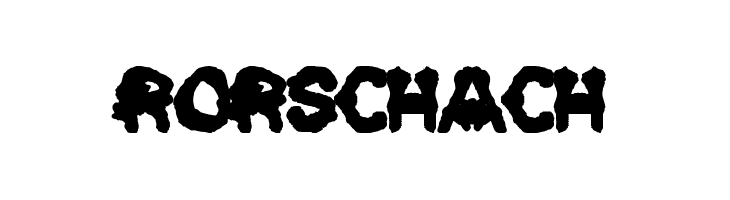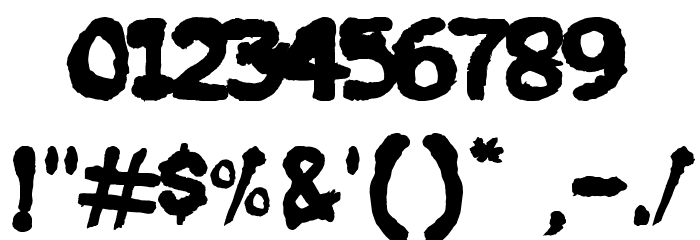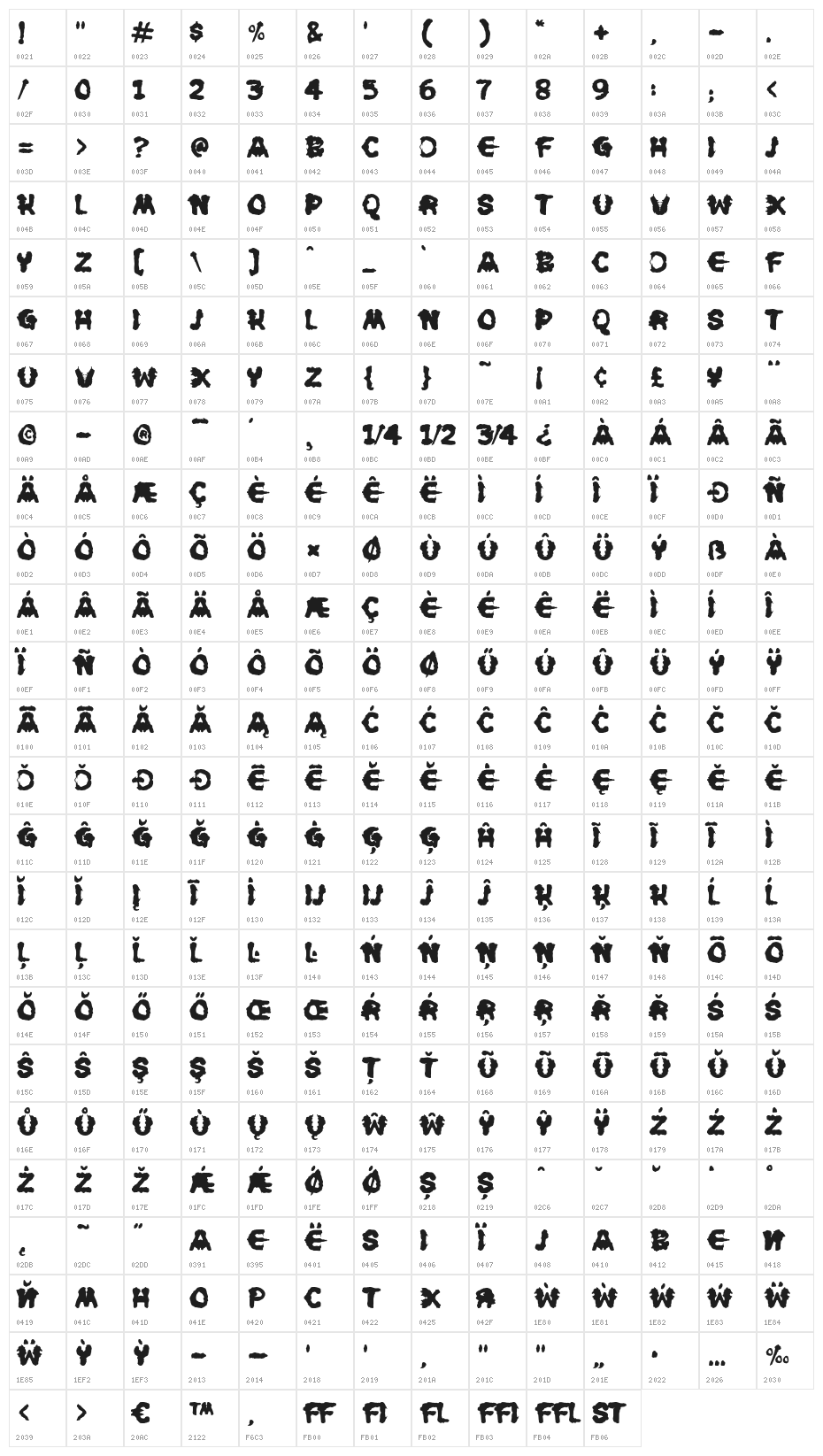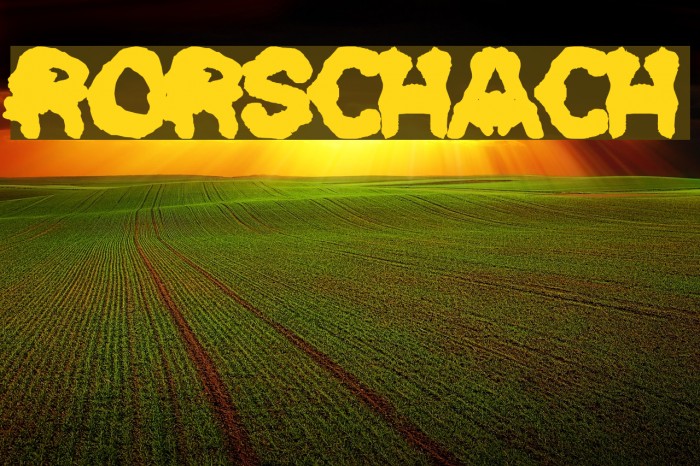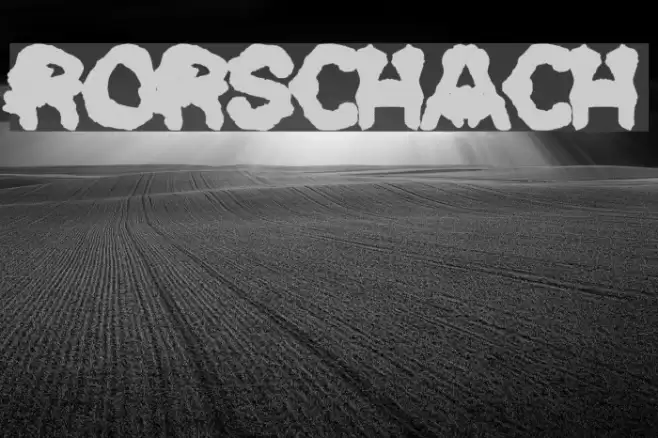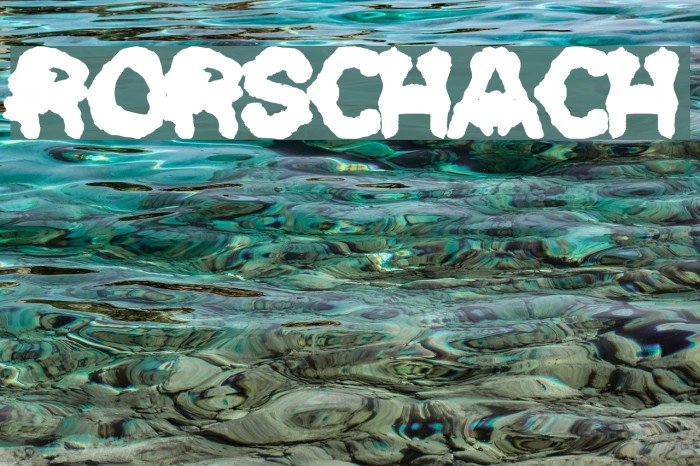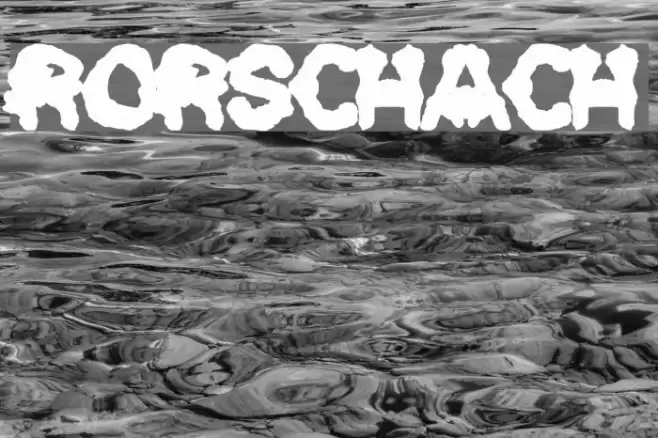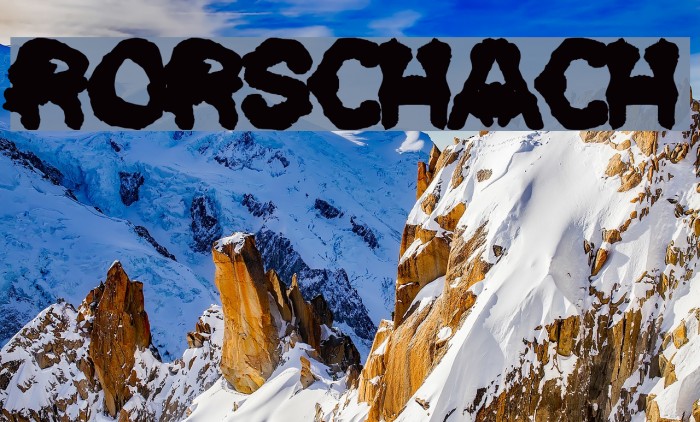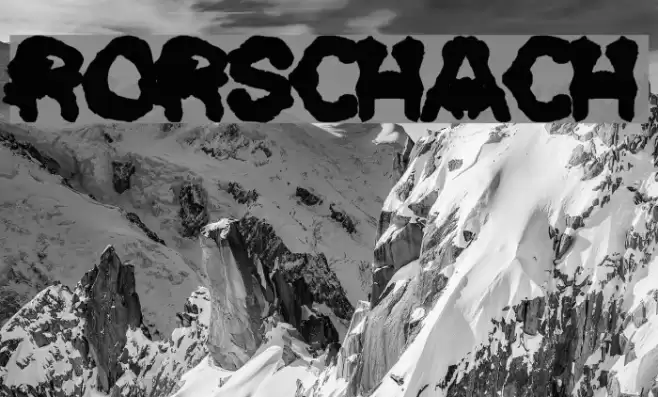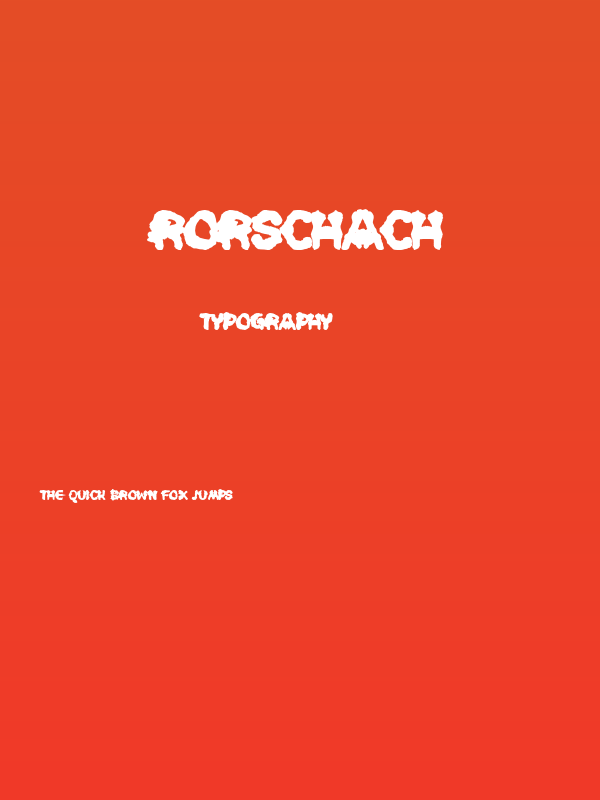
Rorschach Font
Rorschach Description
This font features a bold and dramatic style, reminiscent of inkblot patterns, which gives it a unique and artistic appearance. The characters are heavily stylized with irregular edges, creating a sense of movement and fluidity. The uppercase and lowercase letters maintain a consistent design, while the numbers and special characters complement the overall aesthetic. This font is ideal for projects that require a strong visual impact and a creative touch.
| Overall Style | Artistic, Dramatic |
| Proposed Projects | Ideal for artistic posters, album covers, creative branding, and unique invitations. |